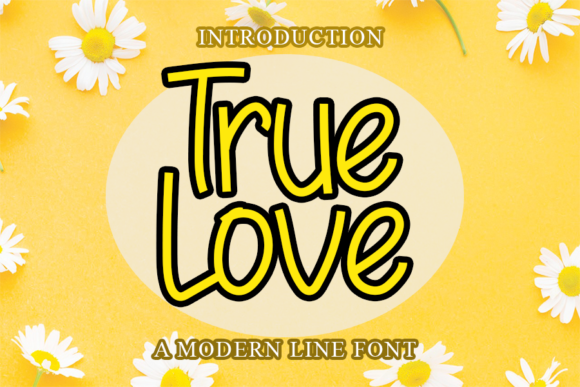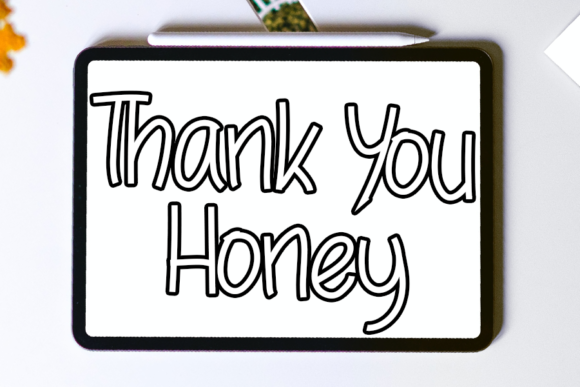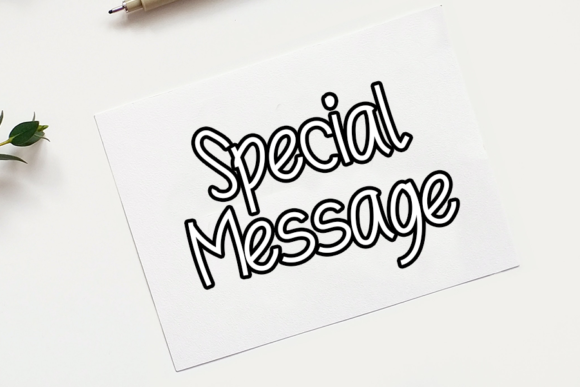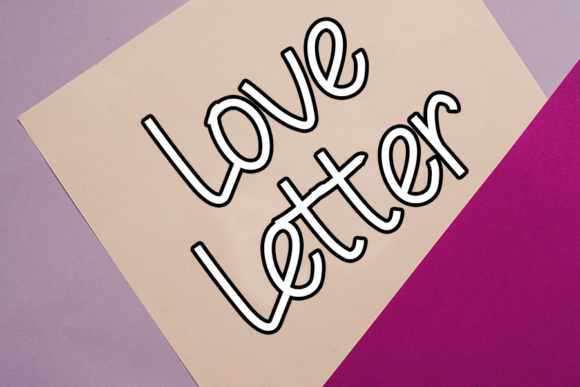
True Love
About True Love Font
True Love is a narrow handwritten font with simple and clean lines. It looks beautiful on a variety of designs requiring a personalized style, such as wedding invitations, valentines day cards, thank you cards, weddings, greeting cards, logos, and so on.